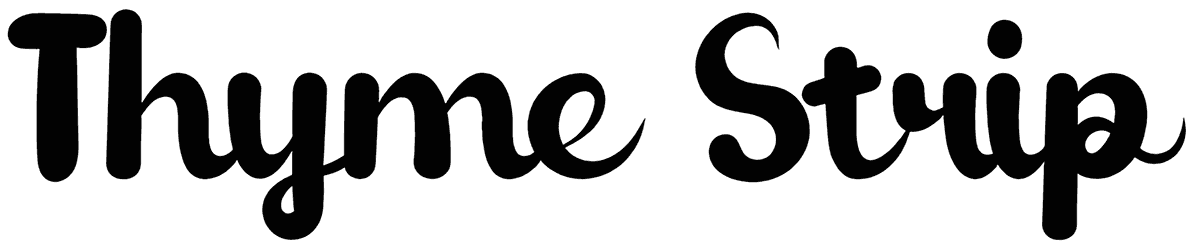
Thyme Strip Font
Thyme Strip is a gorgeous script font with elegant curls and a playful vibe that does a great job of living up to your high standards. Using this stunningly beautiful font will give your projects that extra something to…
Thyme Strip is a gorgeous script font with elegant curls and a playful vibe that does a great job of living up to your high standards. Using this stunningly beautiful font will give your projects that extra something to make them stand out.